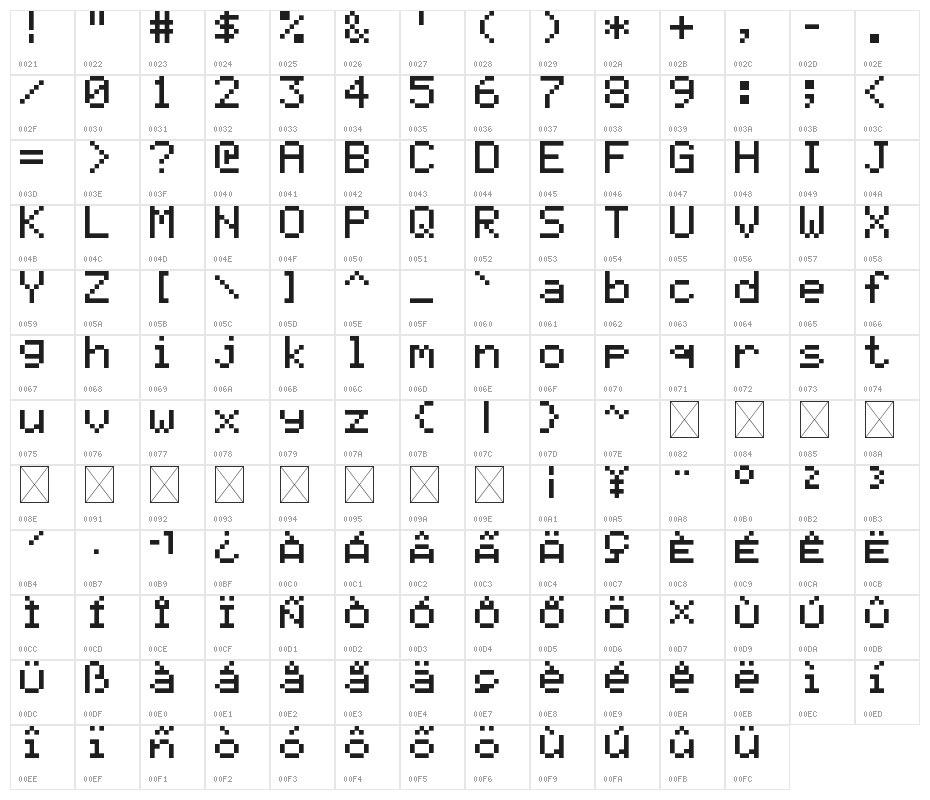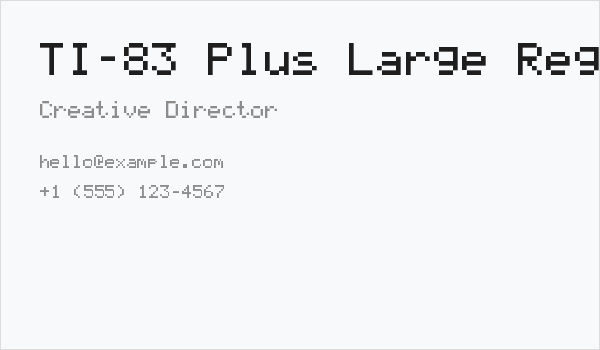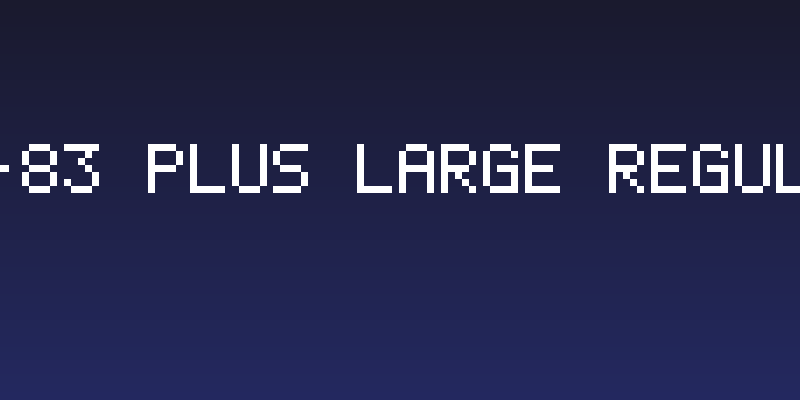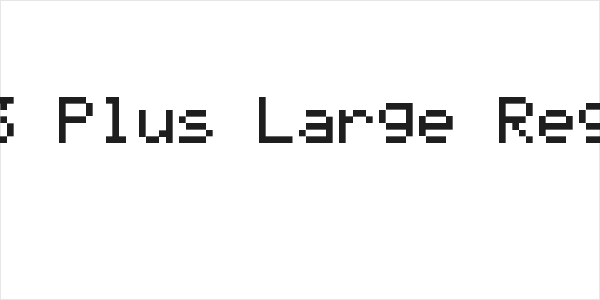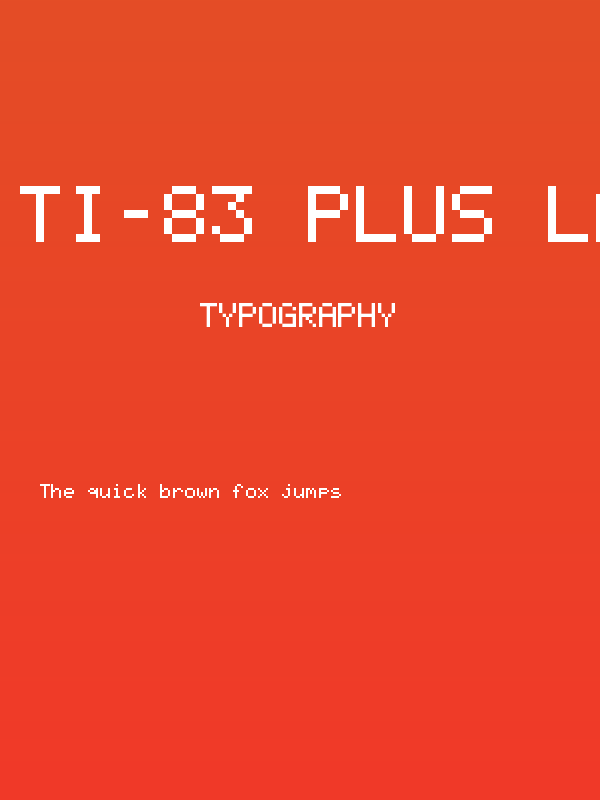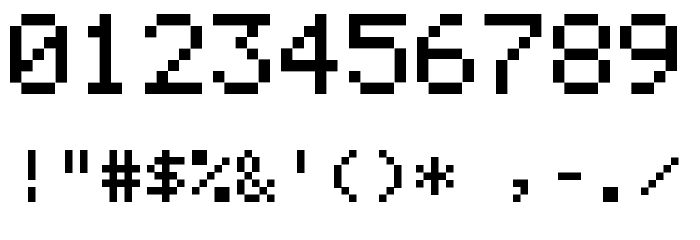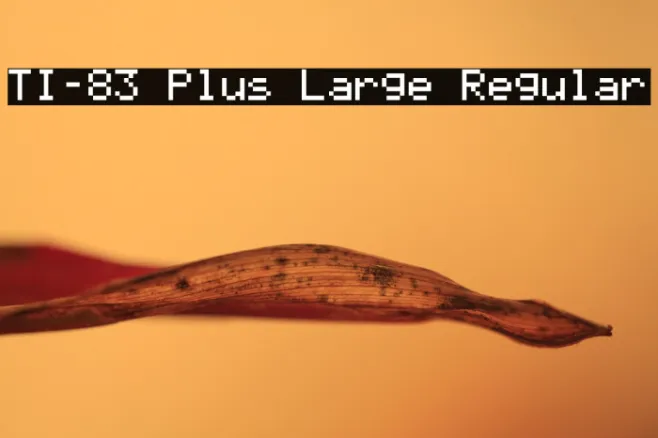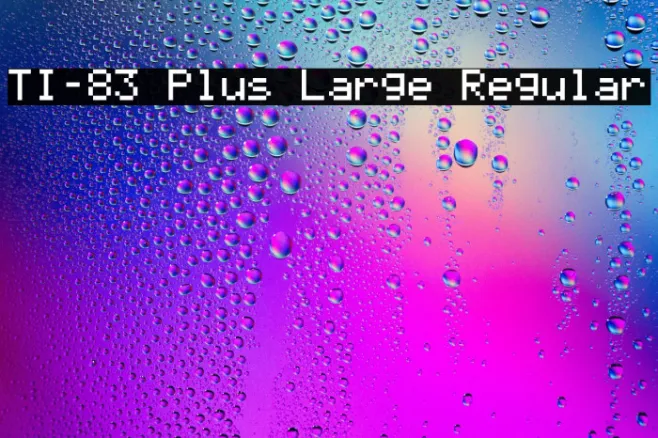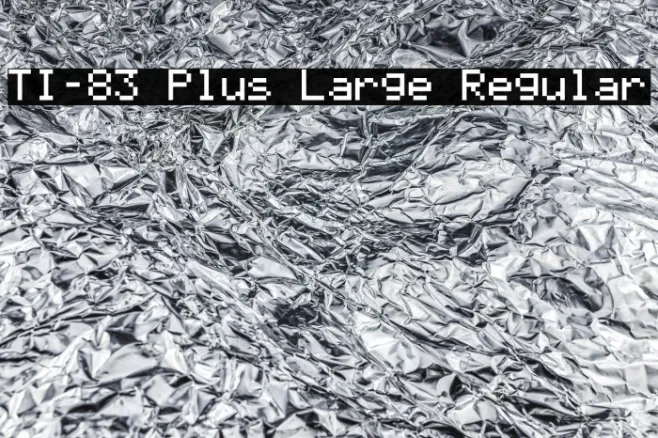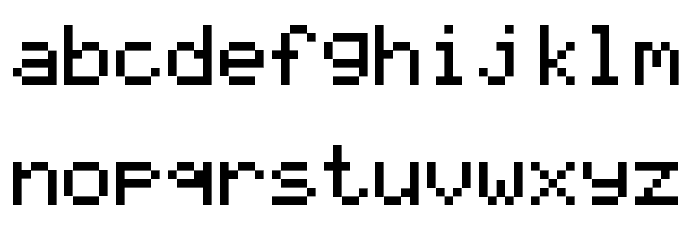
TI-83 Plus Large Regular Font
TI-83 Plus Large Regular Description
This font features a pixelated, monospaced design reminiscent of early digital displays and calculators. Each character is constructed with a grid-like appearance, giving it a retro, digital aesthetic. The uppercase and lowercase letters maintain a consistent height and width, contributing to its uniformity. Numbers and special characters follow the same pixelated style, ensuring readability and a cohesive look. The overall design is straightforward, with no additional embellishments, making it ideal for digital or retro-themed projects.
| Overall Style | Retro |
| Use Case | Digital displays, Coding, Retro games |
| Proposed Projects | Ideal for retro video games, digital displays, coding environments, and tech-themed designs. |